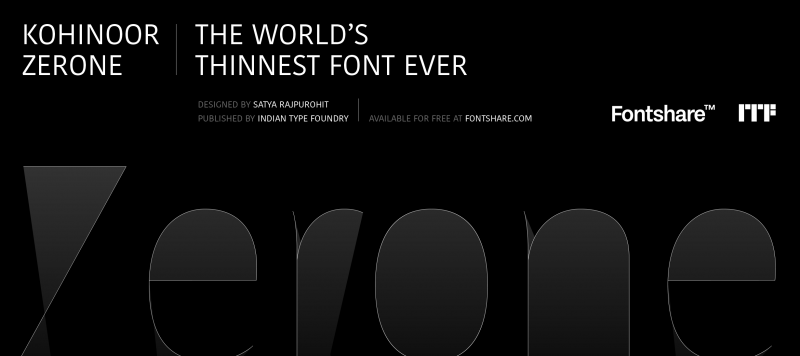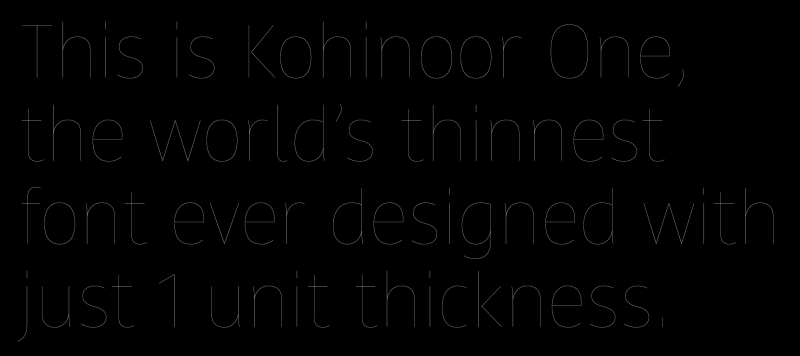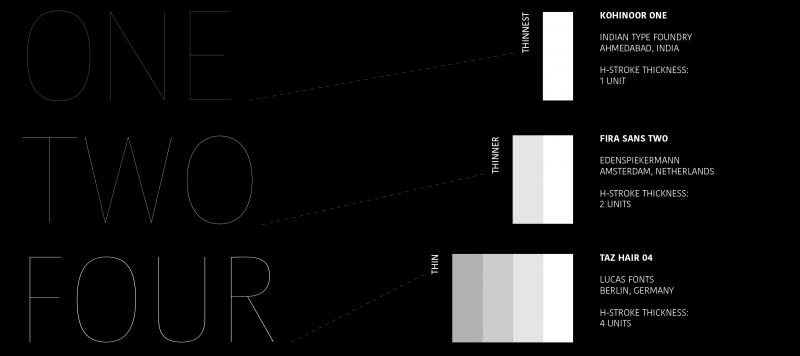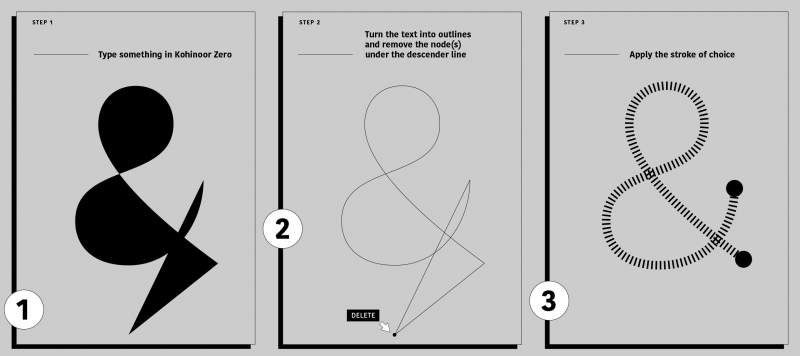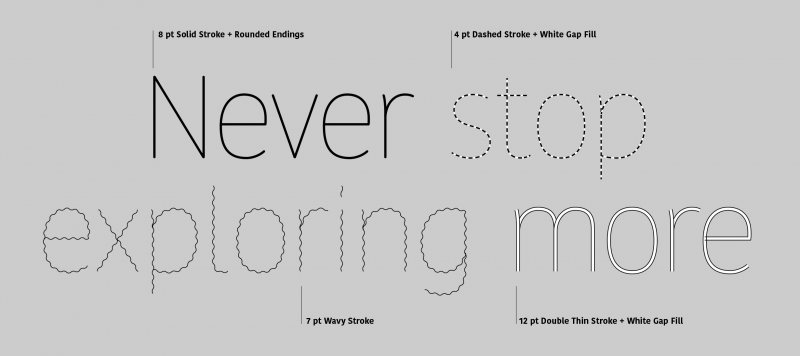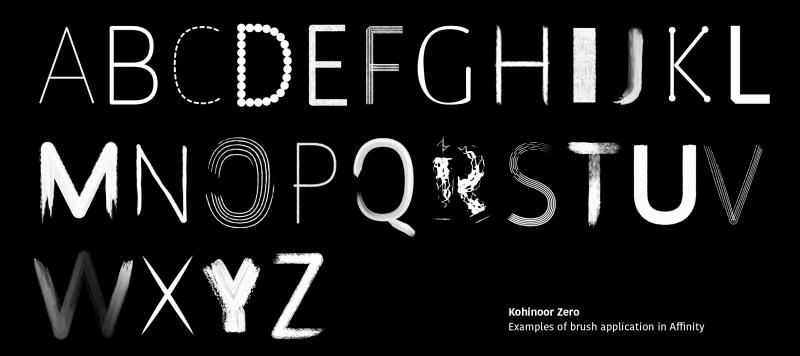
Kohinoor One is the world’s thinnest font ever produced. The strokes of its glyphs are just one-unit thick. As far as we’re aware, that makes Kohinoor One the thinnest retail (or open-source) font currently available in the market (indeed. there are fonts available elsewhere with strokes that are four or even two units wide). Kohinoor One is an addition to Kohinoor Multiscript – ITF’s oldest superfamily. As a series of fonts, Kohinoor was designed in a humanist sans serif style suitable for body text and display text, too. It is an all-around typeface for graphic designers, software engineers, and branding specialists. Thanks to its clear appearance, Kohinoor is easy to work with and inviting to read. Begun with the goal of supporting all of the major Indian languages while harmoniously translating a single design aesthetic across each writing system, Kohinoor Multiscript currently supports over 150 languages that are spoken natively by 3.5 billion people. The superfamily is an ideal choice for text-heavy multilingual projects, including those from the areas of corporate design, electronic-embedding in apps, navigation or signage systems, print publications, product instruction manuals, and television subtitling.
Kohinoor Zero is a base for designers to make their own creative digital lettering. You decide yourself what kind of outline to apply to the skeleton of the letters. The concept was to offer designers a font whose glyphs were just single strokes. Yet, it is impossible to export single strokes from a font editor and install that as a font in your operating system. Many designers already draw single-stroke lettering in applications like Illustrator and then space and kern the letters in that lettering themselves. But as a workflow that is slow and not ideal. At ITF, we came up with a work-around. We “temporarily” closed the counters of all the letters by a straight line and aligned these nodes as the same place under the baseline. Because that resulted in closed-shape forms, we could export those outlines as a proper OpenType font. To work with Kohinoor Zero, you first need to set text in an app like InDesign or Illustrator. Then, you convert that text into outlines. Finally, you must delete all the nodes below the descender line. That leaves you with simple outlines. Remove the fill color and apply the stroke, brush, or outline of your choice. Satya Rajpurohit began developing Kohinoor Zerone more than a dozen years ago. He first presented the idea at TypeCon 2010 in Los Angeles.